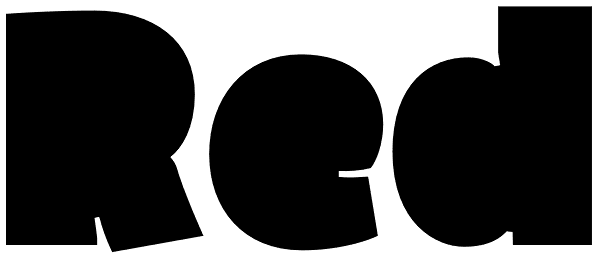
Red
Red began as an experiment, and turned into a larger project. Most super-black type designs are constructed of extremely simple and geometric elements. Most of them do not include a lowercase alphabet. Red is designed to be simultaneously more...